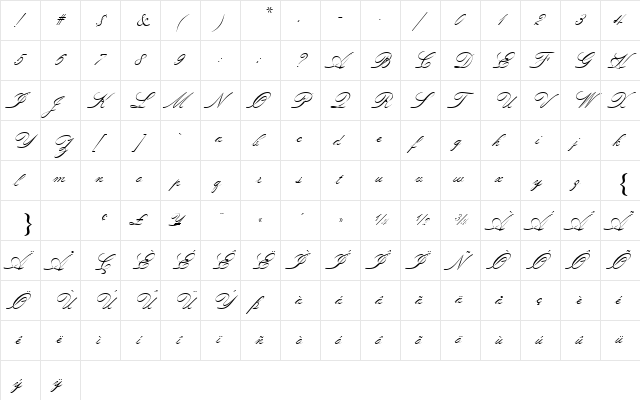
ATSackersItalianScript Regular
Design Context for ATSackersItalianScript Typeface
ATSackersItalianScript brings a calligraphic fluidity to the page — its connecting strokes and expressive curves give it an unmistakably human quality.
Font Pairing: Combine ATSackersItalianScript with a simple geometric sans for maximum contrast — the tension between flowing curves and clean structure is a classic typographic pairing.
Pro Tip: Pair ATSackersItalianScript with a clean sans-serif for supporting text. The contrast between fluid script and geometric structure creates an elegant typographic hierarchy.